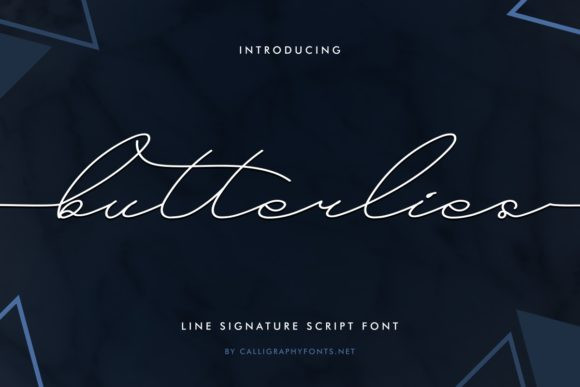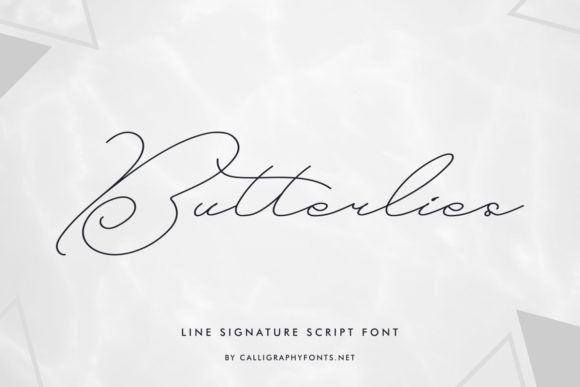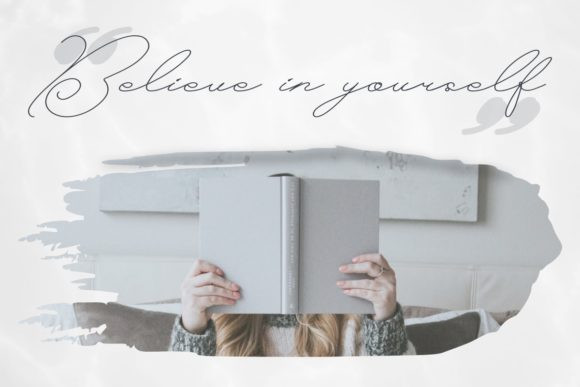
Butterlies Font
Butterlies FontButterlies is a thin and elegant handwritten font. Add it to your most creative ideas and notice how it makes them come alive!